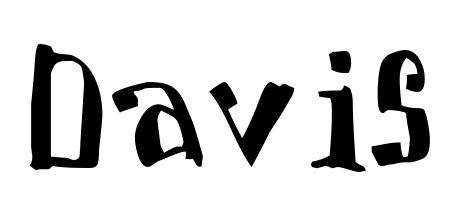
Davis
By Divide by Zero
Davis: A bold, slightly distressed typeface with a playful, almost hand-drawn quality. Each letter possesses unique, irregular edges, giving it a vintage or slightly gothic feel. The serifs are subtly present but inconsistent, enhancing the informal, handcrafted appearance. It projects a friendly yet strong personality.